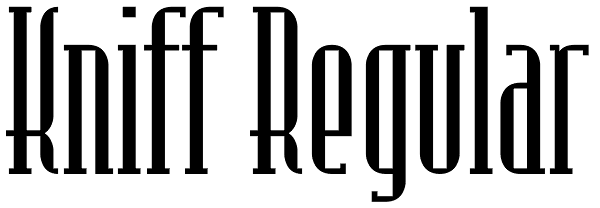
Kniff
Kniff was designed and digitized by Emo Risaliti, distinguished Italian graphic designer, as a Font Bureau commission. He drew on extreme geometric styles of the nineteen-thirties to produce an Art Deco triumph, an ultimate in compact slabserif...